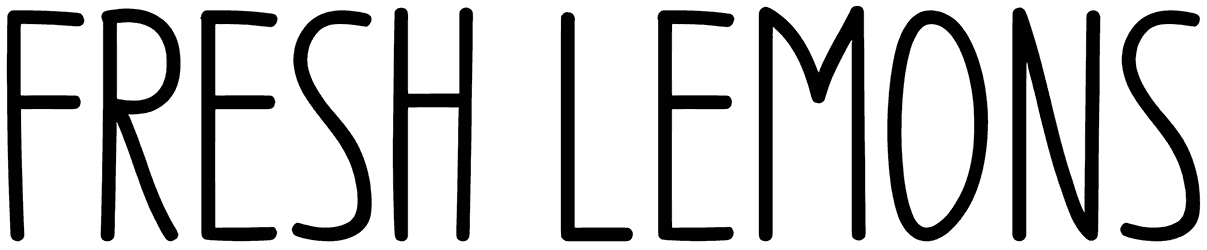
Fresh Lemons Font
A minimal farmhouse font like this one is a useful item that could be matched with different topics. The modern and modest form of characters can convey a friendly vibe to your followers. Even with no support for lowercase letters and numbers, the Fresh Lemons can serve you well as a nice adornment for different designs, such as a gift shop logo.